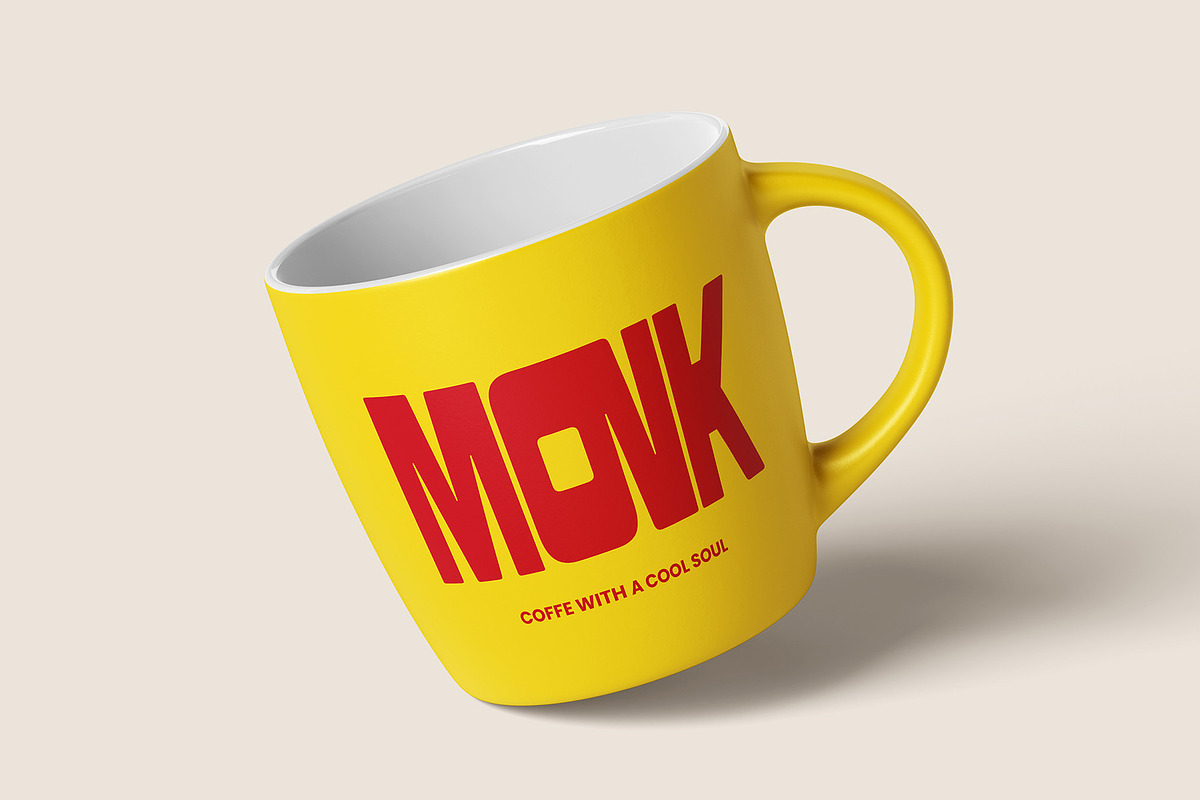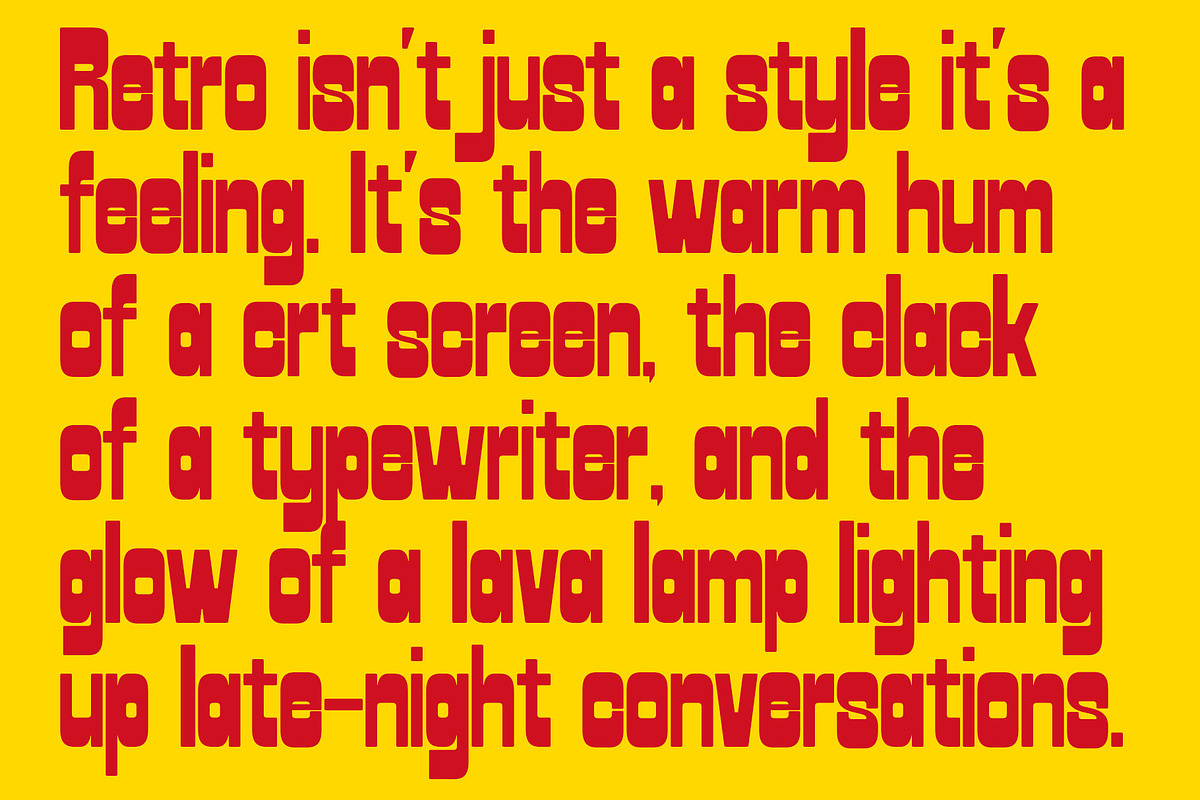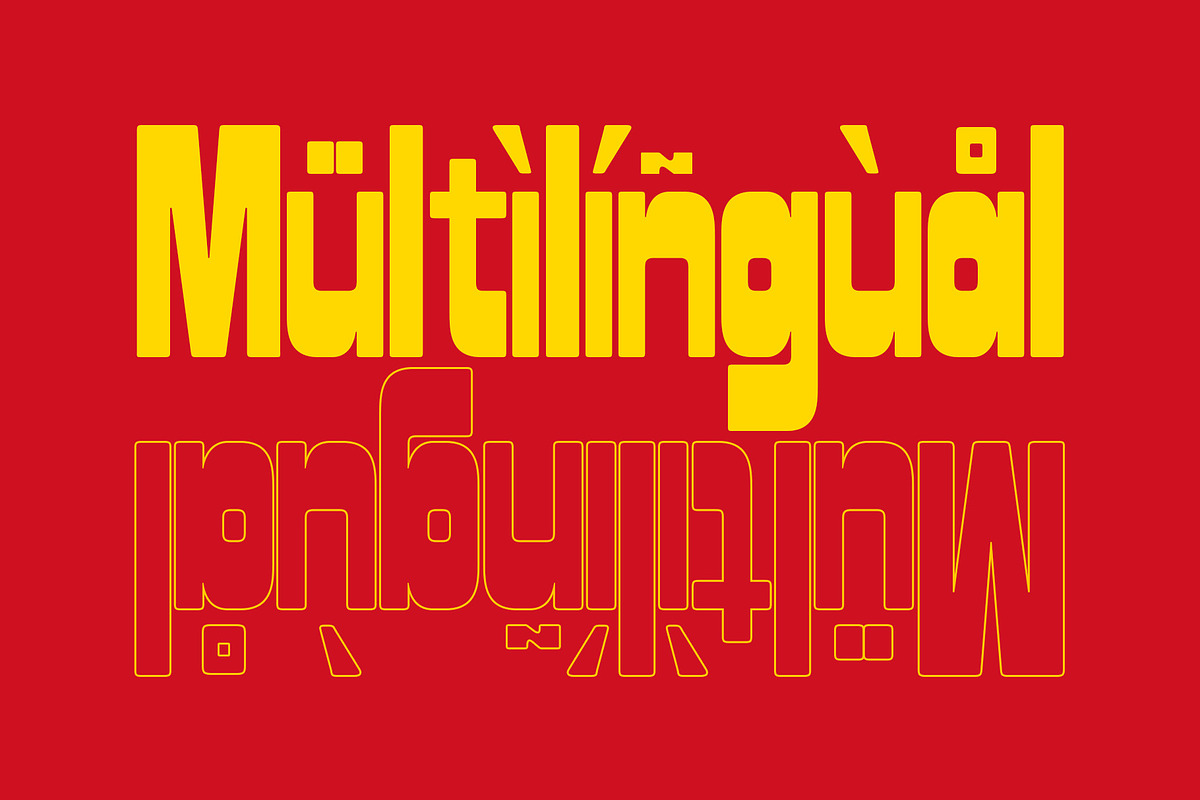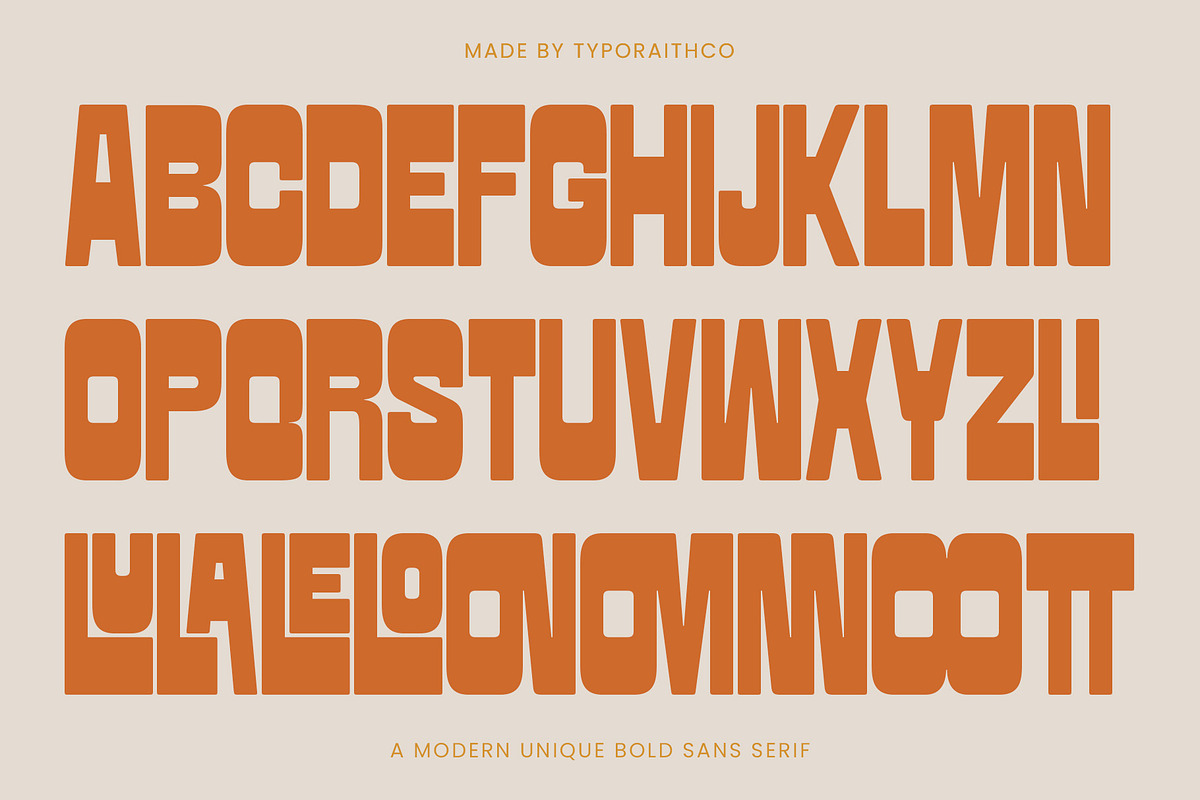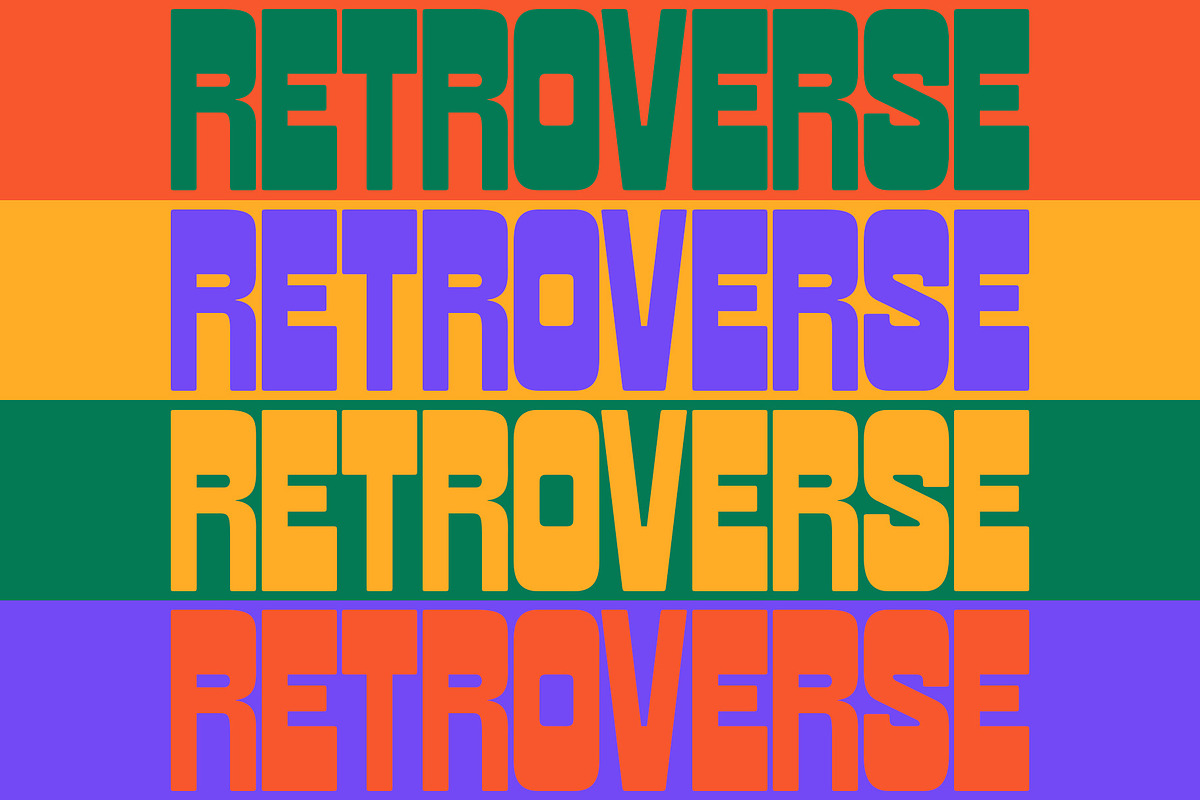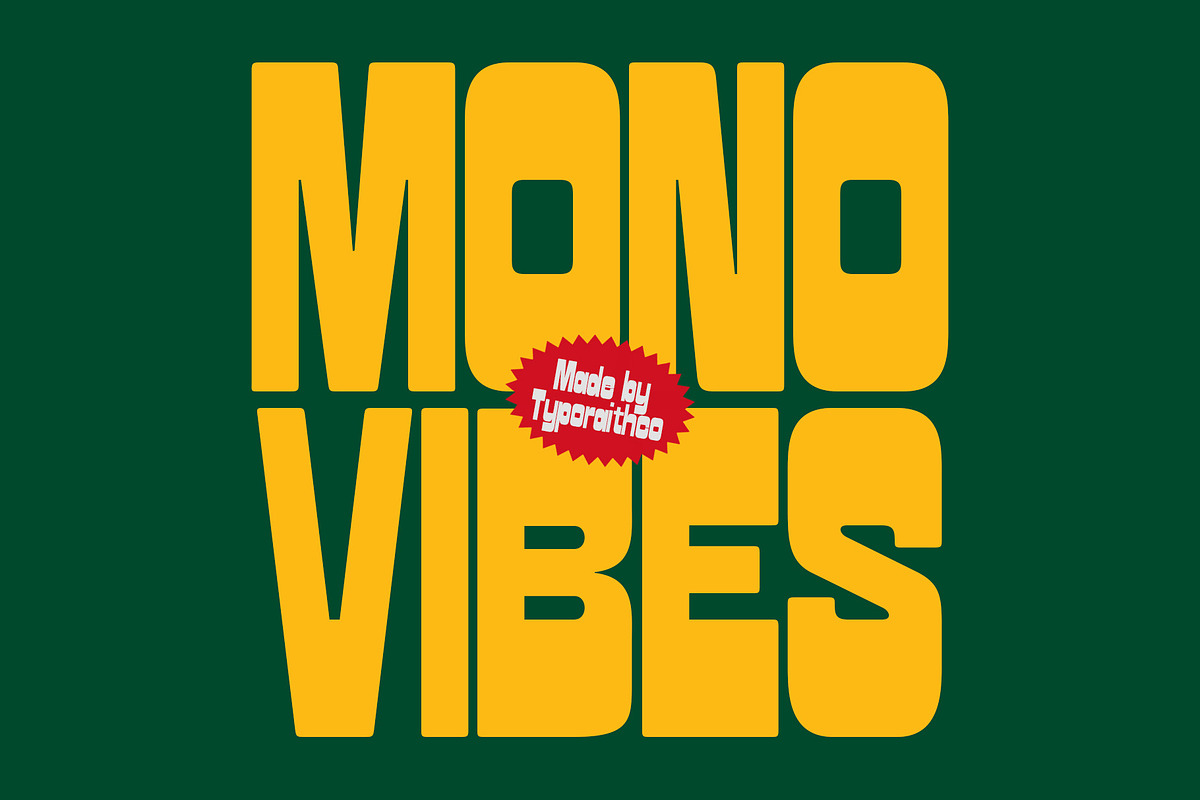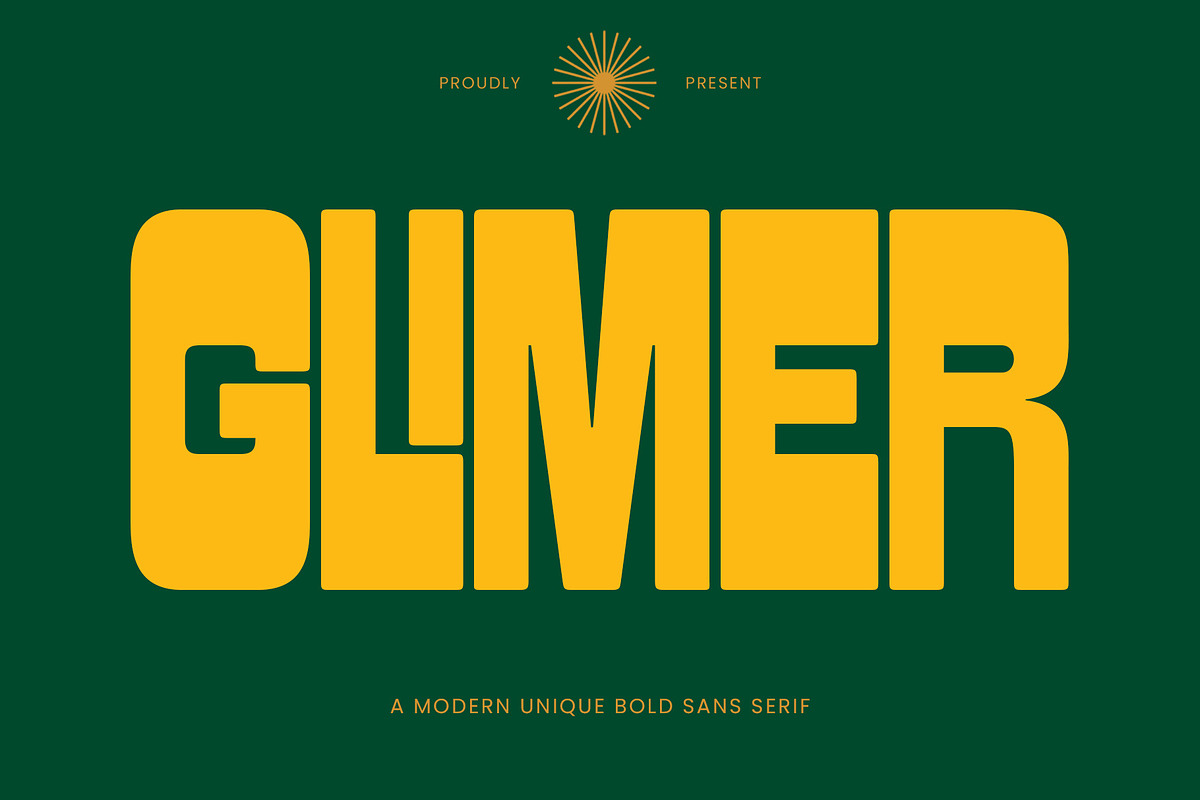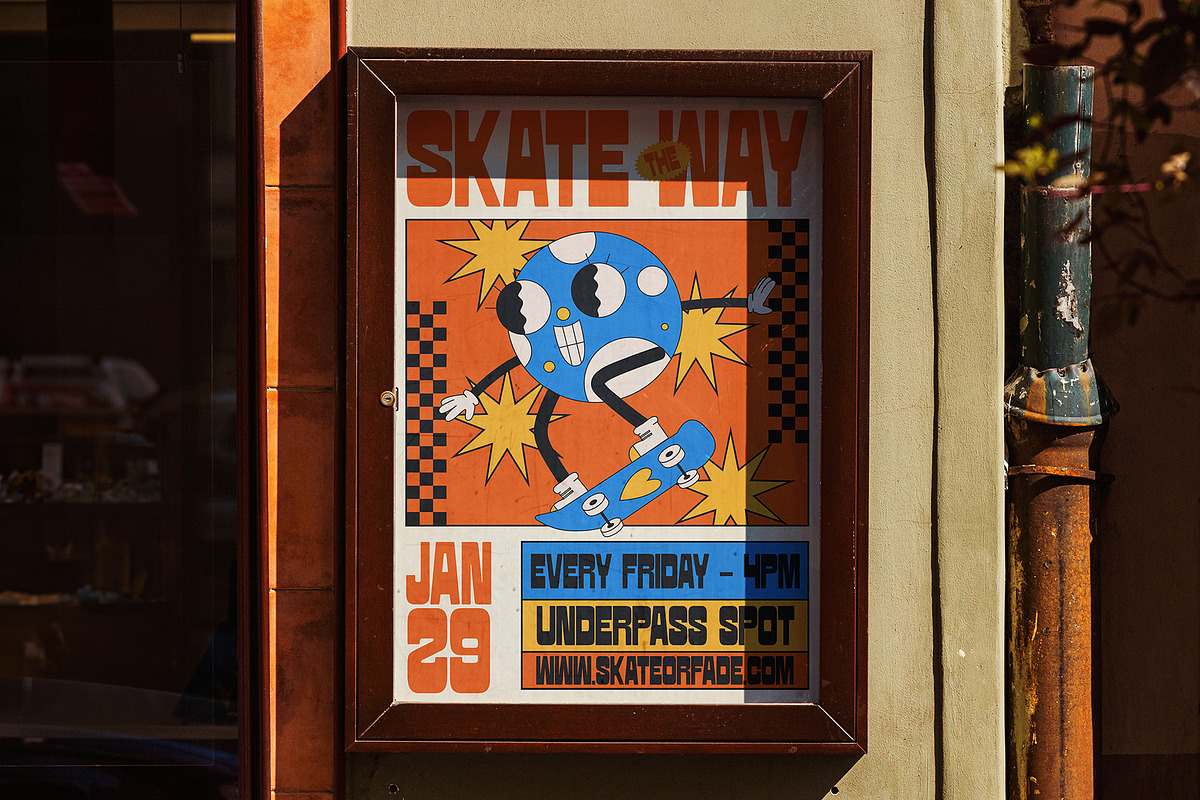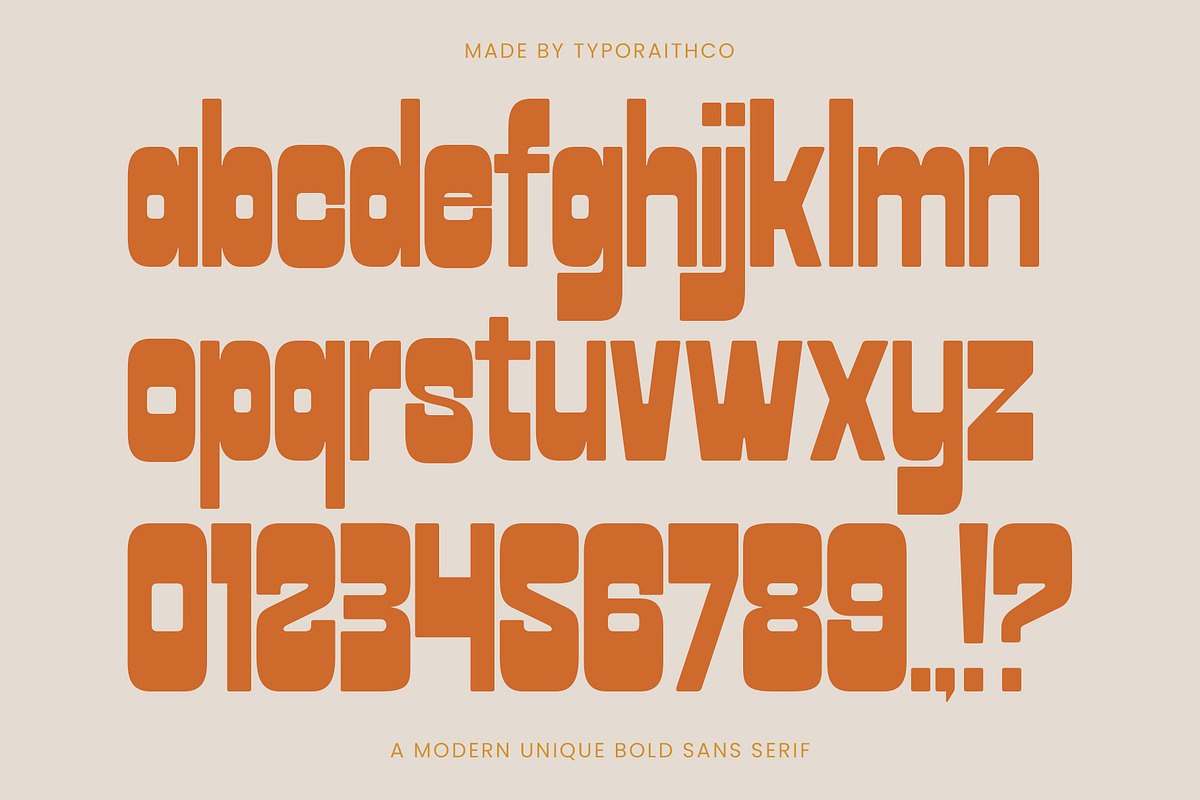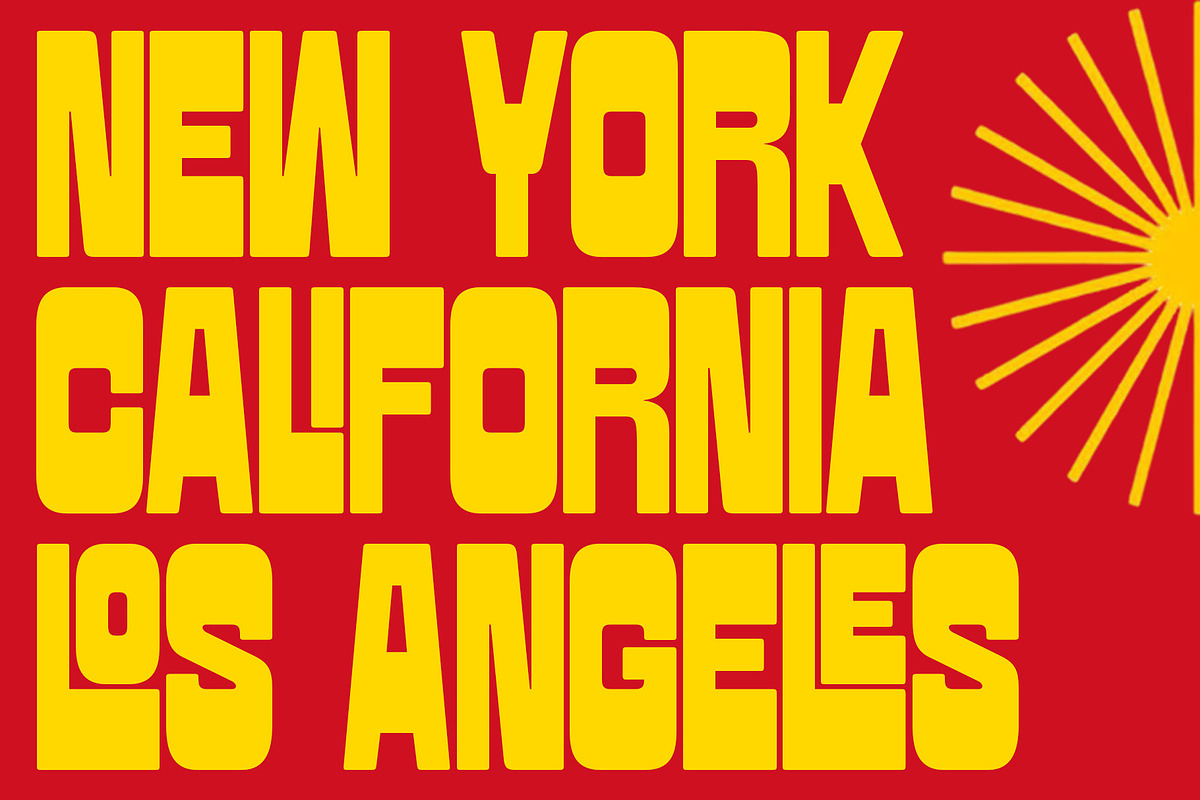
Glimer | Modern Unique Sans Serif
GLIMER is a modern bold sans serif font with a distinctive and powerful character. Designed for attention-grabbing headlines, branding, posters, and bold design statements, GLIMER combines sharp edges with soft curves to create a contemporary and confident look.
Its wide stance and tall structure give a strong presence, while its smooth rounded terminals add a touch of retro flair. Whether you're working on logo designs, editorial layouts, or impactful typographic artwork, GLIMER ensures your message stands out.
Uppercase characters
Multilingual support & Ligatures
Perfect for logos, posters, headlines, and branding
Make your design bold, modern, and unforgettable with GLIMER.